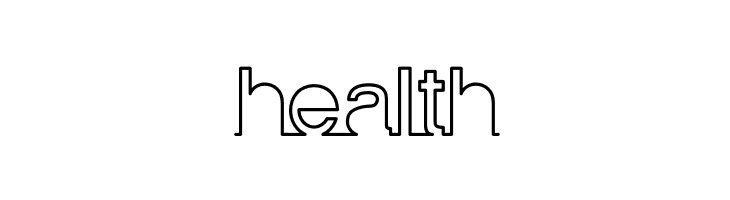
( Jayvee Enaguas )
A pixelated, monospaced font with a retro digital aesthetic.
( Jelloween - T. Koster - jelloween.deviantart.com )
A classic serif font with high contrast and elegant strokes.
( Nermin Kahrimanovic - www.behance.net/nermink )
A playful, bold font with rounded edges and a hand-drawn feel.
( Owen Earl - indestructibletype.com/ )
( Philippe Cochy - pecita.eu )
A playful, modern font with geometric and cursive elements.
( Pisto Casero - Gilberto Moya Perona - www.pistocasero.com )
A modern, geometric outline font with a futuristic and digital aesthetic.
( Pisto Casero - Gilberto Moya Perona - www.pistocasero.com )
A playful dashed line font with a casual and creative style.
( Pisto Casero - Gilberto Moya Perona - www.pistocasero.com )
A decorative dotted font with a modern and playful aesthetic.
( Ruben Holthuijsen )
A modern, rounded font with a clean and approachable design.
( Ruben Holthuijsen )
A bold, rounded font with a playful and approachable style.